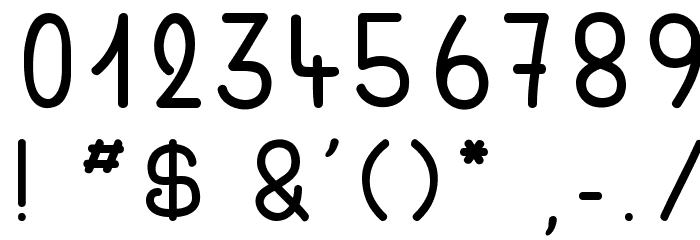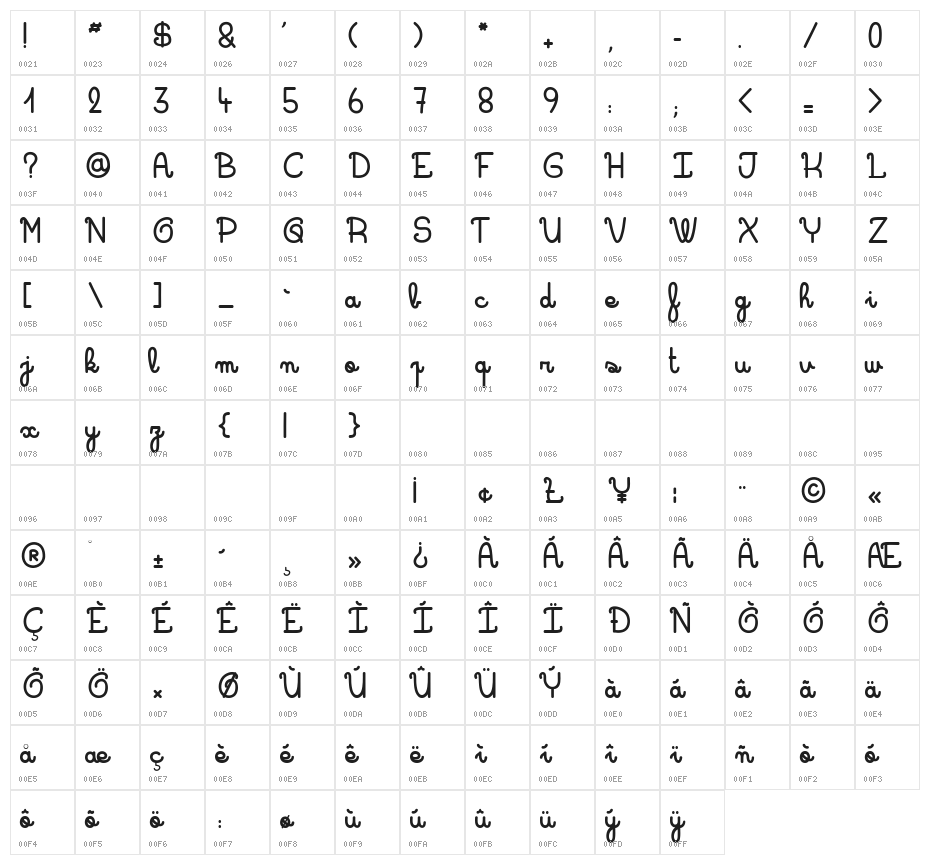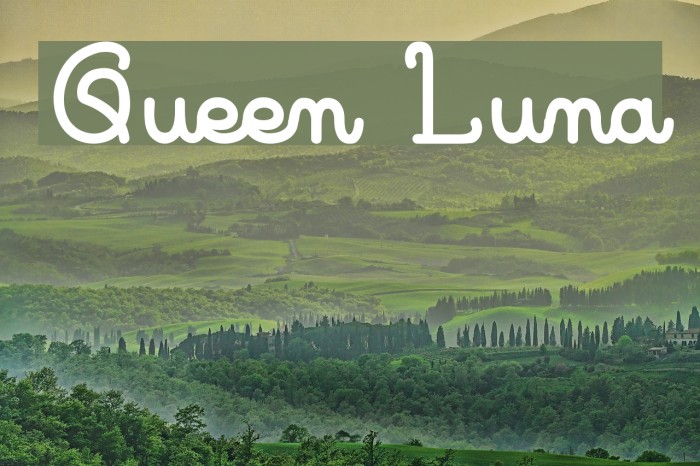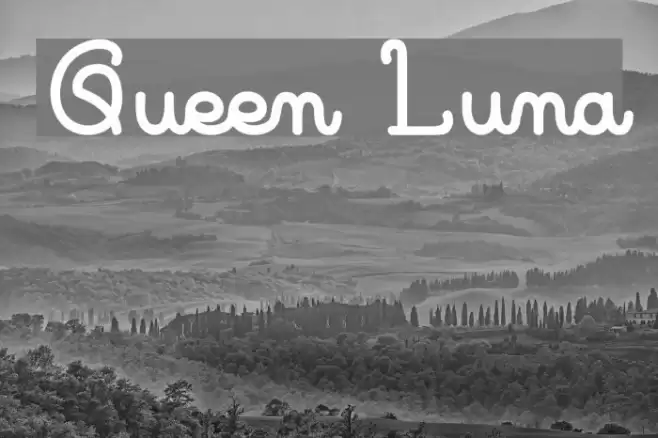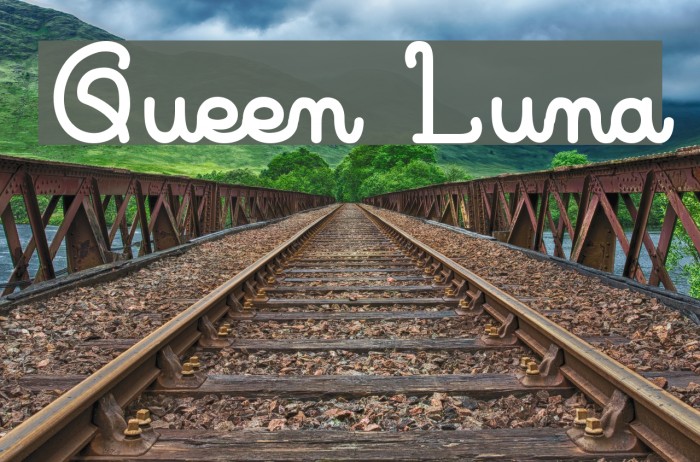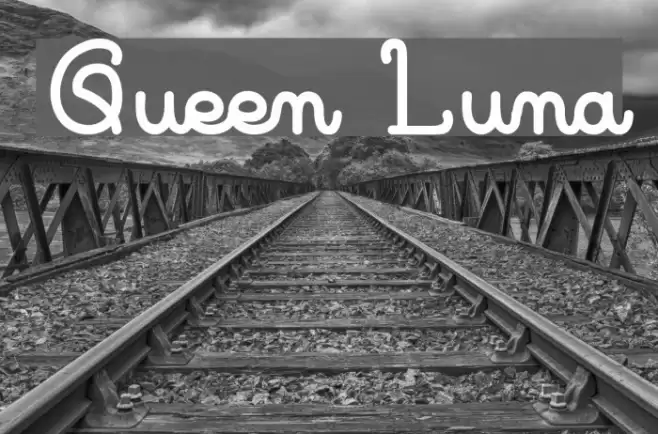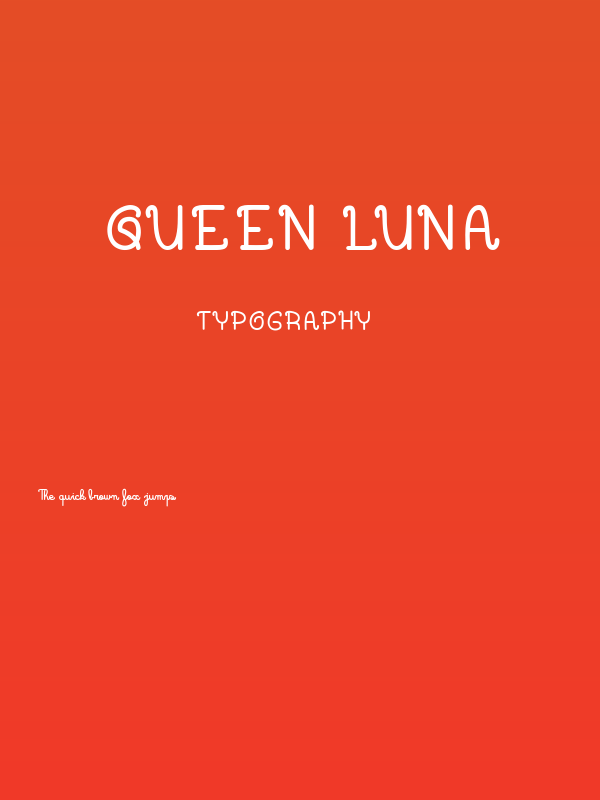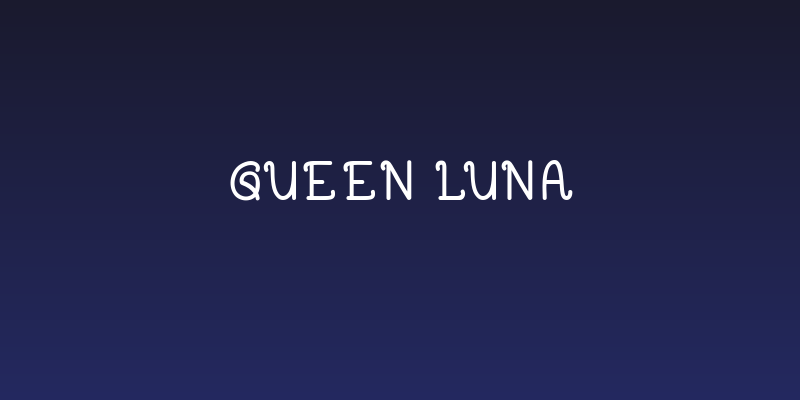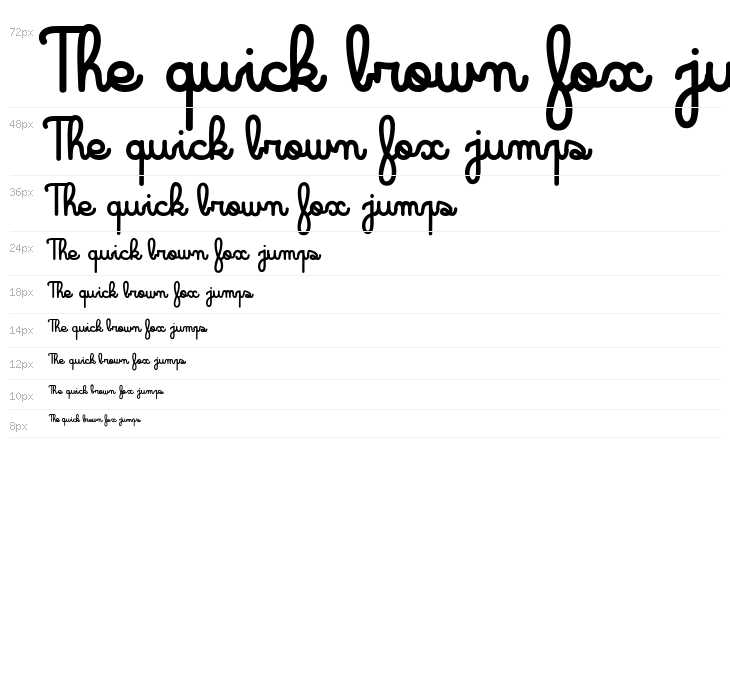
Queen Luna Font
Queen Luna Description
This font features a playful and rounded style with a handwritten touch, offering a friendly and approachable appearance. The uppercase letters are slightly more structured, maintaining a consistent height and width, while the lowercase letters exhibit a more fluid and connected form, reminiscent of cursive handwriting. The numerals are clear and legible, matching the overall rounded aesthetic. Special characters are included, maintaining the same playful and approachable style. This font is versatile, suitable for projects that require a personal and informal tone.
| Proposed Projects | Ideal for children's books, greeting cards, playful branding, and casual invitations. |